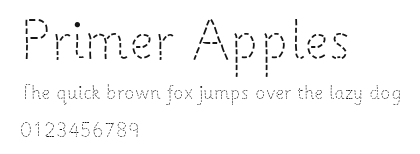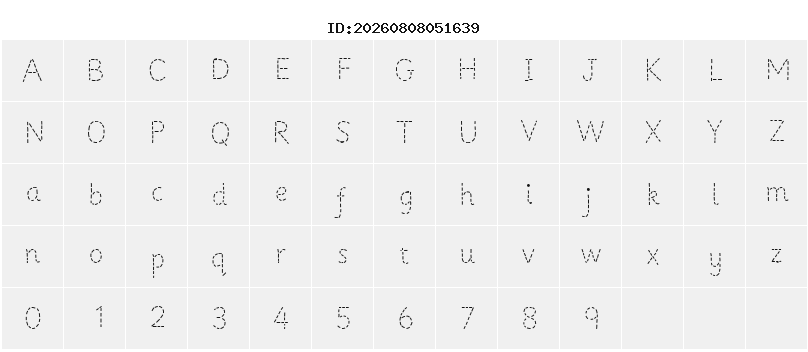
• Font Name: Primer Apples
• Designer: Ray Larabie
Primer Apples.ttf is a modern, elegant sans-serif font designed for ultimate readability and visual harmony. Perfect for branding, headlines, web design, and print materials.